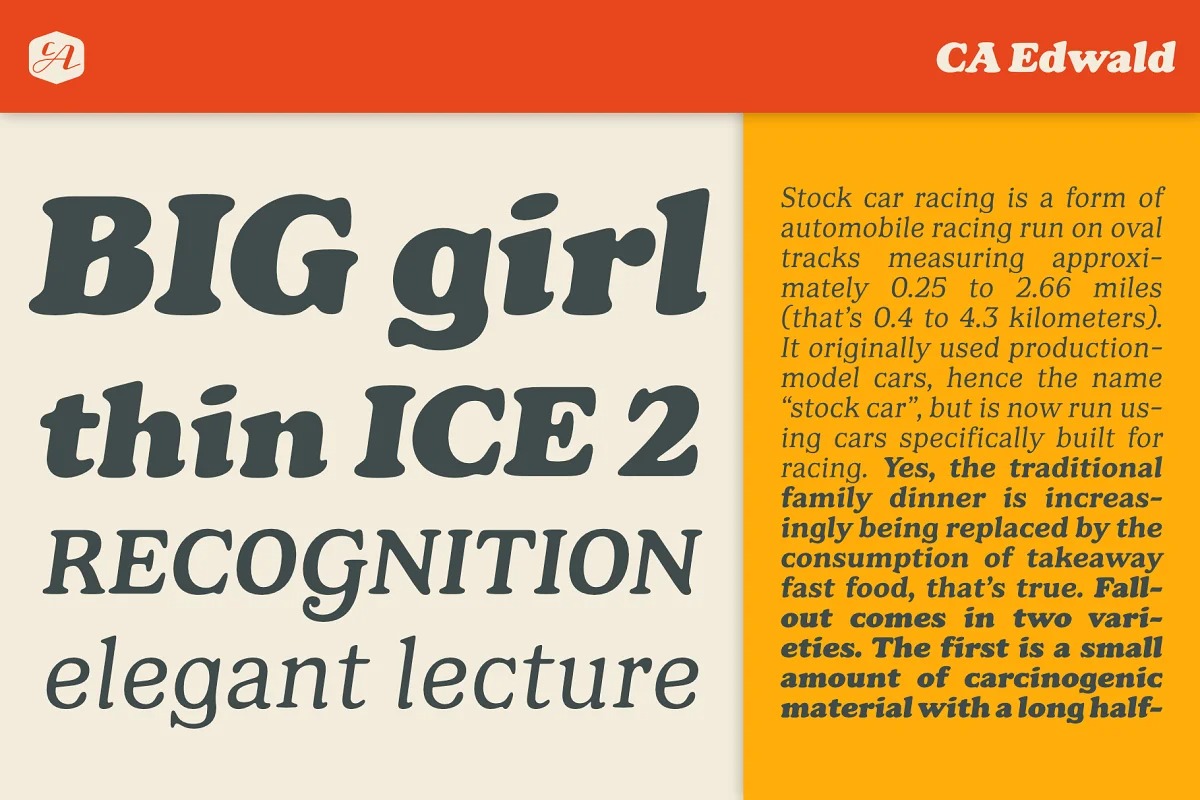
CA Edwald Serif Font
It’s a retro serif font look with simple, clean and visual elegance with smooth curves and beautiful ligatures, A very versatile font that works in both large and small sizes. The superbly crafted alphabet design, now available in 5 weights, combining the familiar, the unusual, the practical and the aesthetic. The illegitimate child of Oswald Bruce Cooper and Ed Benguiat. A mix of two classics: CA Edwald.
A dominant type face. A bold Roman that is a genuine design. It distributes the message with a convincing force of powerful expression.